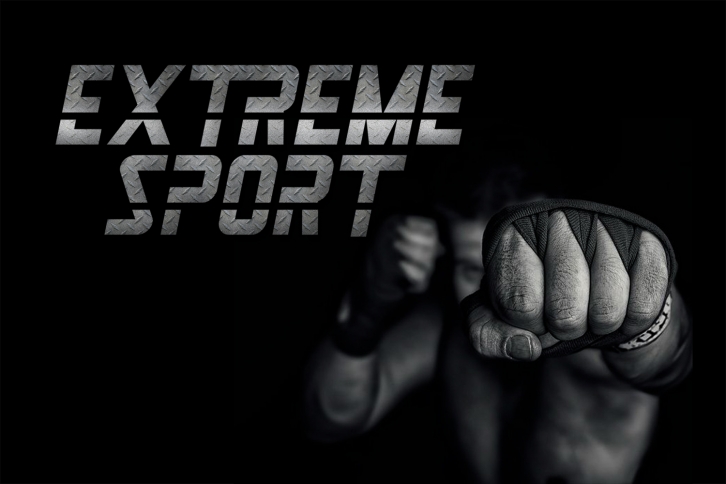
Jet Pilot Family is a great font that was designed by madeDeduk. Imagine the amount of combinations you can create using this font! The archive is 18.88 MB and it was released on October 4, 2017. Jet Pilot Family looks beautiful on wedding invitations, greeting cards, logos, posters, labels, t-shirt designs, logos, business cards and is perfect for use in ink or watercolor works, fashion, magazines, packaging and food menus, children's books and more!